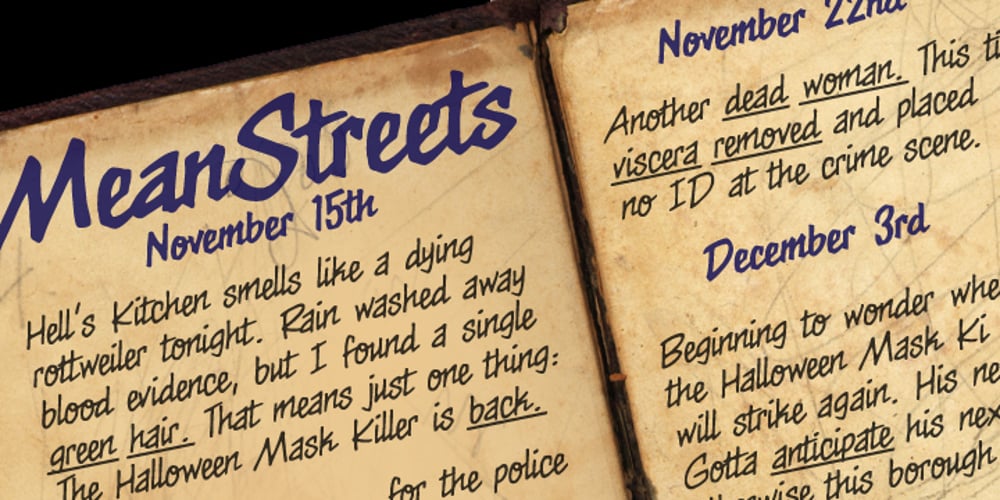
MeanStreets BB Font Family was designed by Nate Piekos and published by Blambot. MeanStreets BB contains 12 styles and family package options. MeanStreets is a quasi-script font family that includes six variations created with both a pen and a marker. Lots of European characters included and a few nifty Opentype autoligs such as: ff and tt so they have a single pen stroke crossing them.